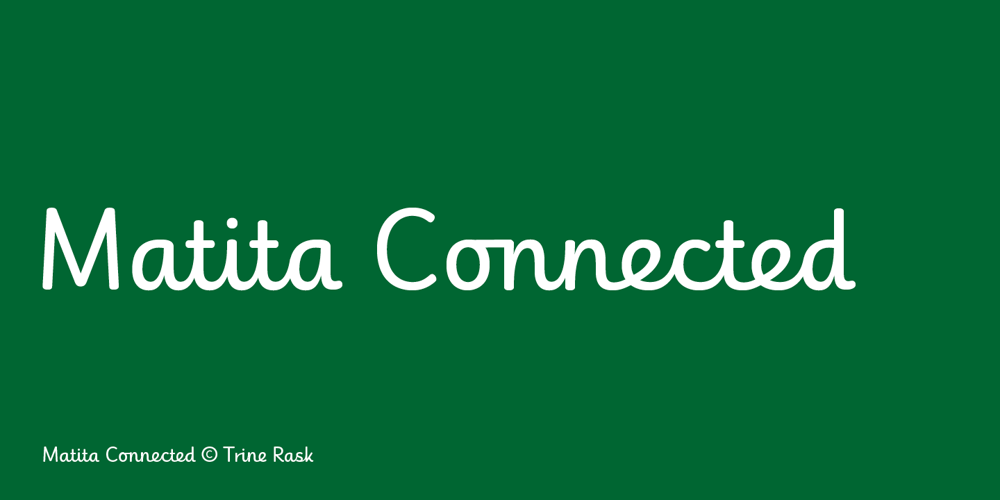
Matita Connected Font Family was designed by Trine Rask and published by Trine Rask. Matita Connected contains 3 styles and family package options. Warning: works with contextual alternate-feature, which is not showing here. Matita Connected is part of a larger type family developed from 2005-2019 with handwriting in mind. A solid script face in two weights and a dotted instructional version. With alternative glyphs based on different writing habits. For teaching, teaching material or just typography. An unchildish handwritten type family for many purposes.